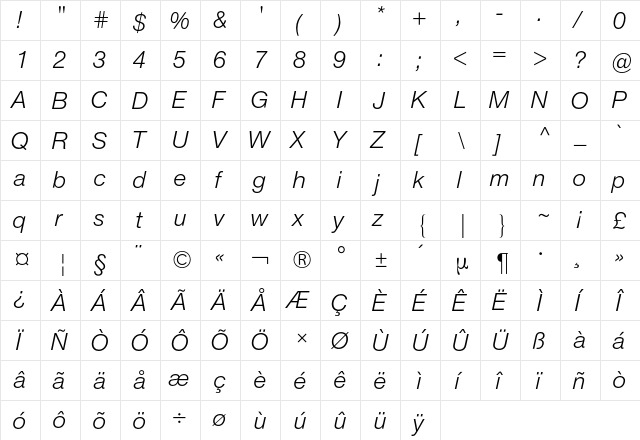
Neue Helvetica BQ Regular Font Preview
Neue Helvetica BQ Regular
Neue Helvetica BQ Regular Font Details
Design Context for Neue Helvetica BQ Typeface
Neue Helvetica BQ is a composed and adaptable typeface that performs quietly and consistently across a wide range of design contexts.
Pro Tip: Pair Neue Helvetica BQ with a font of contrasting weight or personality to build a more expressive typographic hierarchy.